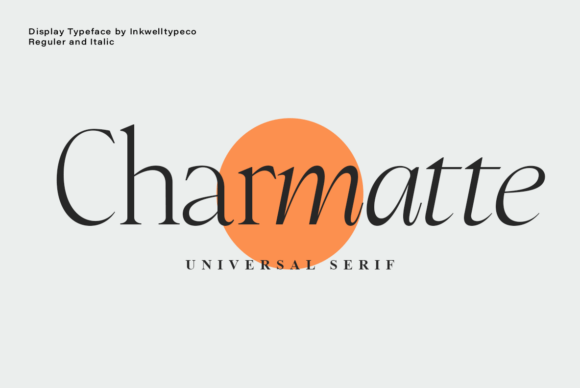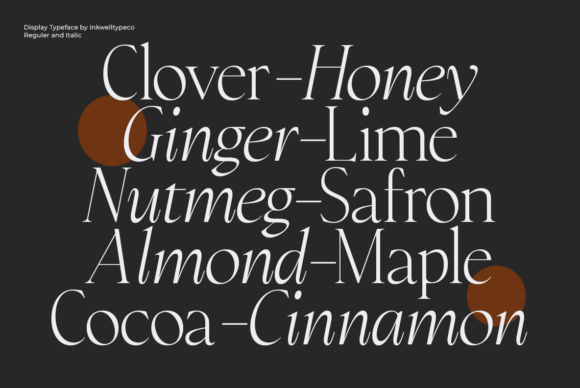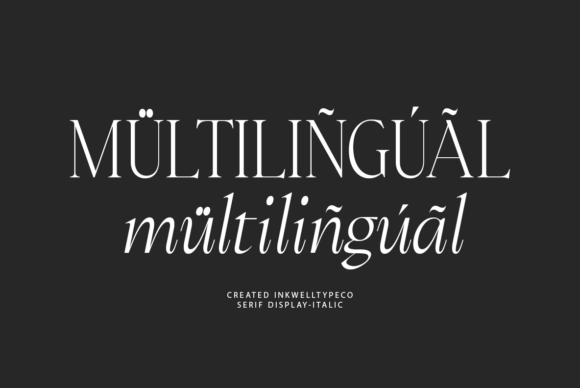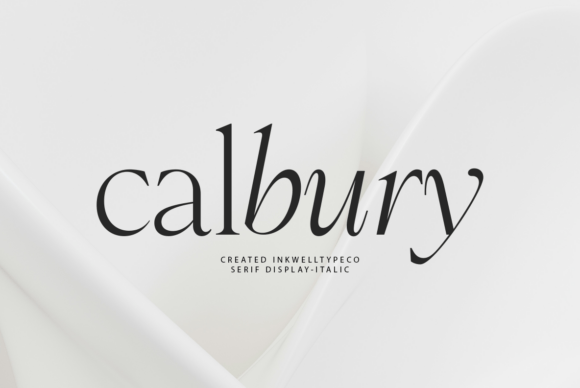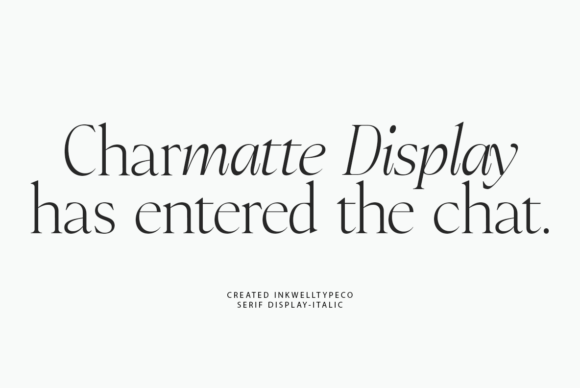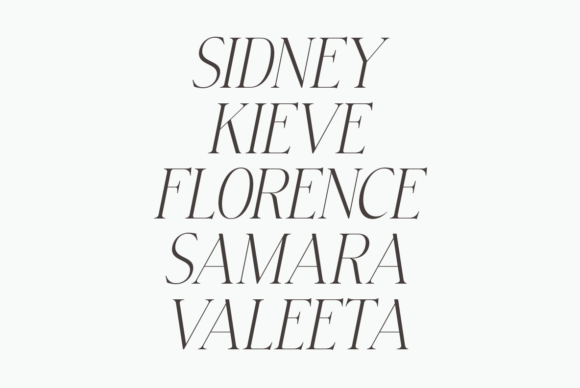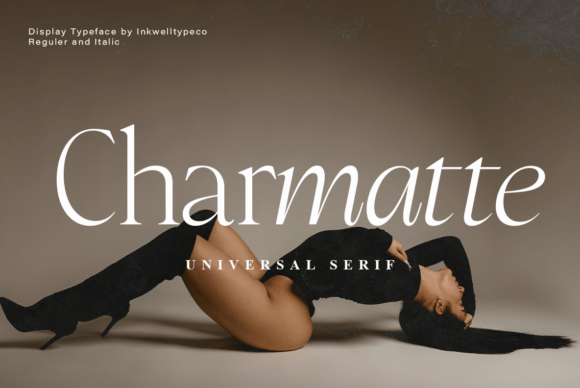
Introducing Charmatte Font: Elevate Your Design with Elegance and Sophistication
In the world of typography, a font can make or break a design. For those seeking to add a touch of luxury and modernity to their creative projects, Charmatte Font is an excellent choice. This elegant serif font is designed to bring a sense of refinement and sophistication to any design, making it perfect for a wide range of applications, from branding and editorials to packaging and fashion design.
The Charmatte Difference: Two Styles for Versatility
Charmatte Font offers two distinct styles: Regular and Italic. This dual offering provides designers with the flexibility to choose the perfect tone for their project. The Regular style boasts strong, refined letterforms with distinctive serifs, exuding professionalism and sophistication. On the other hand, the Italic style adds a dynamic and artistic touch with smooth curves that enhance elegance and visual appeal.
The Regular Style: Professionalism and Sophistication
The Regular style of Charmatte Font is perfect for designers seeking to make a bold statement. Its strong, refined letterforms are characterized by distinctive serifs that add a touch of elegance to any design. This style is ideal for:
- Premium logos: Add a touch of sophistication to your brand’s logo with Charmatte’s refined letterforms.
- Fashion magazines: Elevate your editorial design with a font that exudes professionalism and style.
- Luxury invitations: Make a lasting impression with Charmatte’s elegant and refined typography.
The Italic Style: Dynamic and Artistic
The Italic style of Charmatte Font adds a dynamic and artistic touch to any design. Its smooth curves and flowing lines enhance elegance and visual appeal, making it perfect for:
- Fashion design: Add a touch of sophistication and glamour to your fashion designs with Charmatte’s Italic style.
- Minimalist websites: Elevate your website’s typography with a font that is both elegant and refined.
- High-end typography designs: Create stunning typography designs that exude luxury and sophistication.
Crafted with Delicate Details
Charmatte Font is crafted with delicate details to elevate your creative projects. The font’s designer has paid close attention to every aspect of the letterforms, ensuring that each character is both elegant and refined. This attention to detail makes Charmatte Font perfect for designers and crafters seeking to create high-end designs that stand out from the crowd.
Why Choose Charmatte Font?
So, why choose Charmatte Font for your next design project? Here are just a few reasons:
- Elegance and sophistication: Charmatte Font is designed to bring a touch of luxury and modernity to any design.
- Versatility: With two styles to choose from, Charmatte Font is perfect for a wide range of applications.
- Attention to detail: The font’s delicate details make it perfect for designers and crafters seeking to create high-end designs.
| Font Name | Charmatte Font |
| Author | InkwellTypeCo |
In conclusion, Charmatte Font is an excellent choice for designers and crafters seeking to add a touch of elegance and sophistication to their creative projects. With its two distinct styles, attention to detail, and versatility, Charmatte Font is perfect for a wide range of applications. Whether you’re designing a premium logo, fashion magazine, or luxury invitation, Charmatte Font is sure to elevate your design and make it stand out from the crowd.